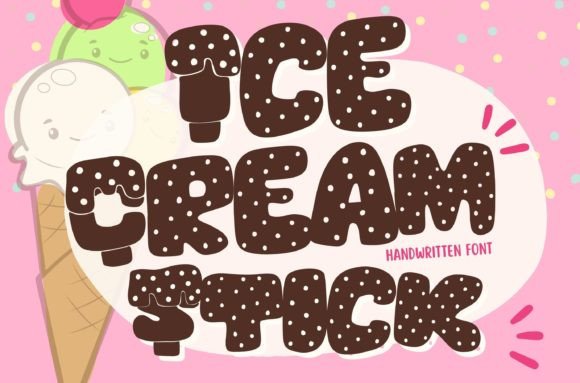
Indulge in a sweet escape with the Ice Cream Stick Font, a delectable treat for your designs! With each letter transformed into a charming ice cream treat on a stick, this font is a visual feast that will melt your heart and brighten your creations. Unleash your imagination and bring a dash of playful joy to your menus, invitations, and more. The Ice Cream Stick Font is the perfect choice to add a touch of summer bliss and sprinkle some sweetness into any project. Say goodbye to boring fonts and embrace the irresistible charm of this whimsical typeface, guaranteed to satisfy your creative cravings and make your designs shine like a sugar-coated dream.